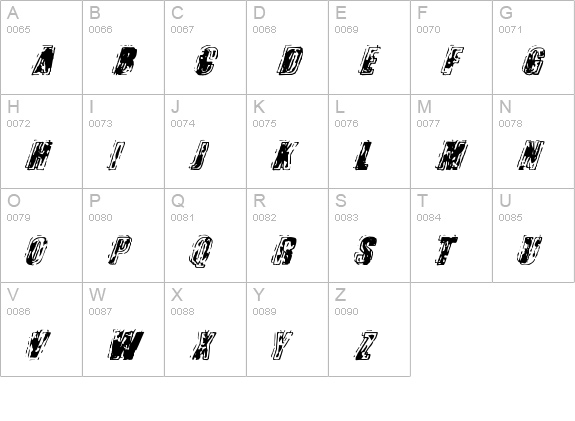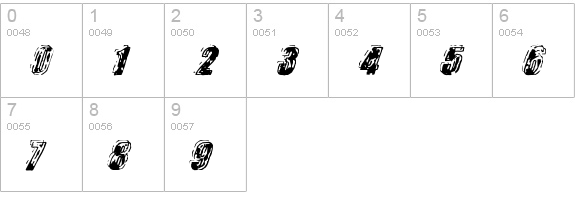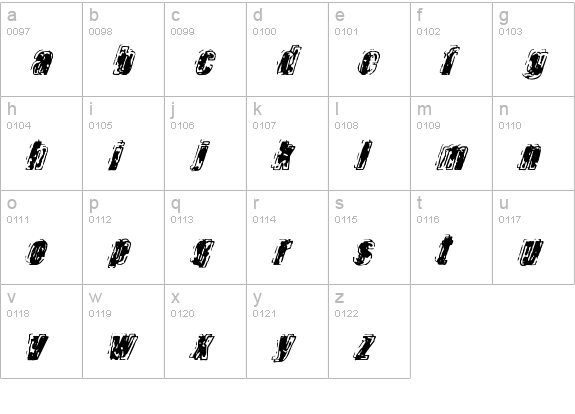
Introducing Zapped font - a bold and electrifying typeface that commands attention with its striking design and dynamic energy. This font is perfect for projects that demand a powerful and impactful visual presence. The sharp angles and futuristic style of Zapped make it ideal for modern branding, posters, headlines, and more. What sets Zapped font apart is not only its eye-catching aesthetic but also the fact that it is available for free download at FontsMarket.com. Yes, you read that right - this stunning typeface can be yours without any cost! Embrace the electrifying vibes of Zapped font and bring a jolt of creativity to your designs today.